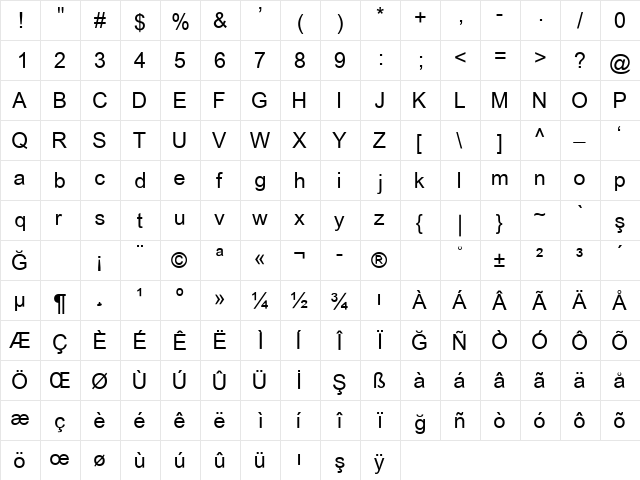
ArialMT Light
Design Context for ArialMT Typeface
ArialMT is a composed and adaptable typeface that performs quietly and consistently across a wide range of design contexts. The delicate stroke weight brings airiness and refinement to layouts.